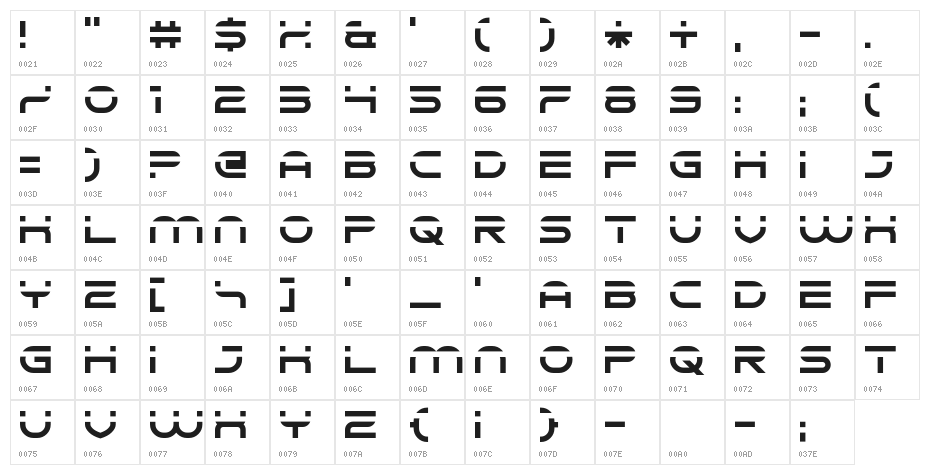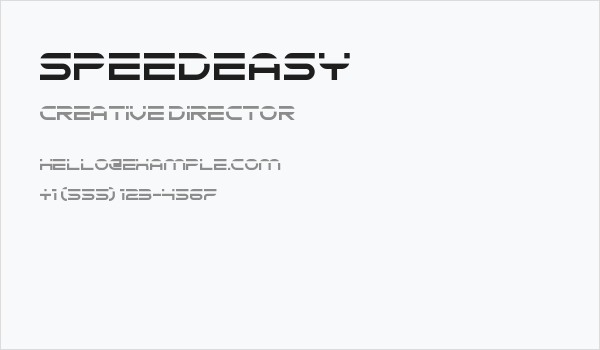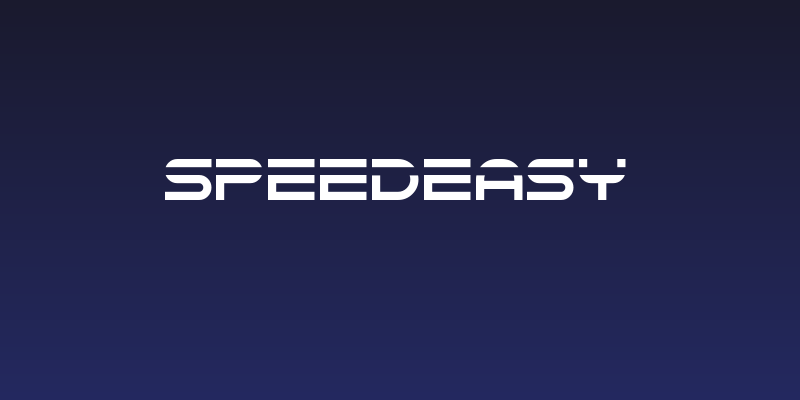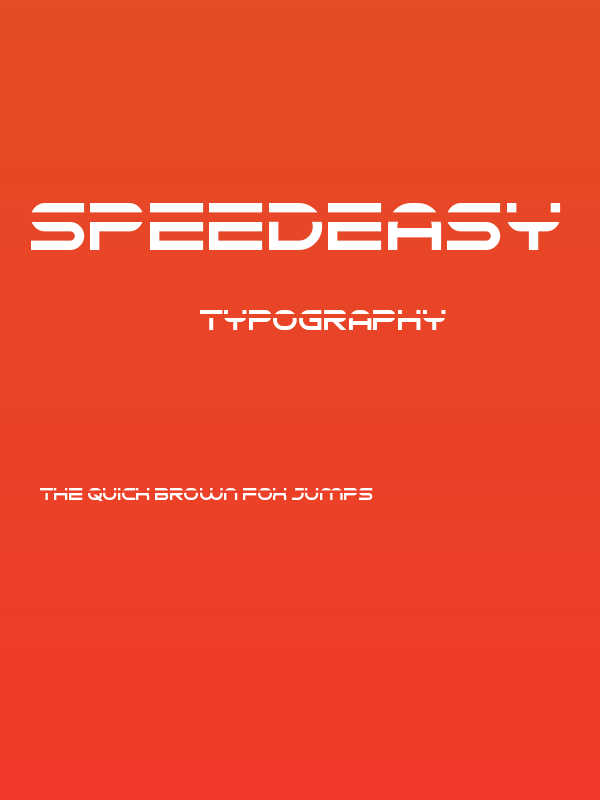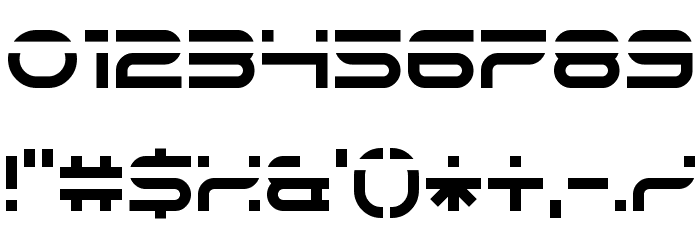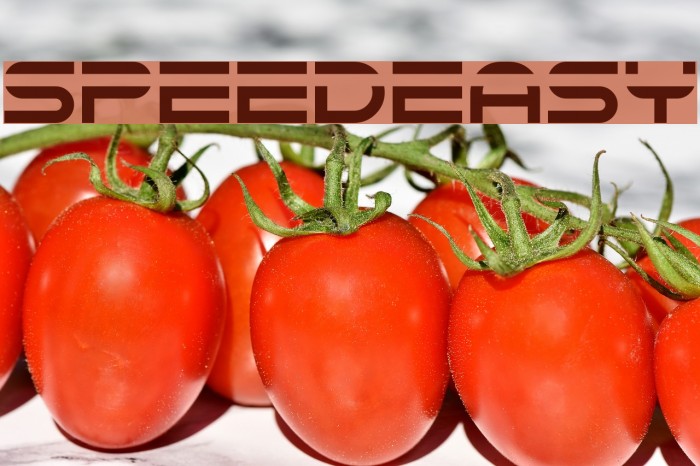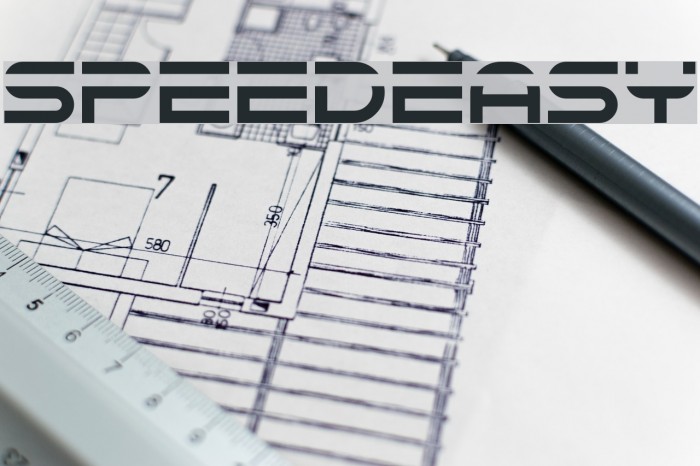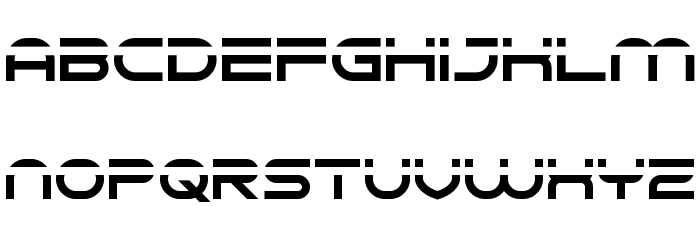
Speedeasy Font
This font features a futuristic and geometric design, characterized by its bold and angular letterforms. The characters are constructed with a series of straight lines and sharp angles, giving it a distinctly modern and digital appearance. The uppercase letters are particularly striking, with a uniform height and width that creates a cohesive and structured look. The lowercase letters maintain the same geometric style, ensuring consistency across the typeface. Numbers and special characters are designed to match the overall aesthetic, making this font suitable for a variety of digital and print applications. Its unique style makes it ideal for projects that require a modern and tech-inspired look.
| Proposed Projects | Ideal for technology branding, digital interfaces, video game titles, and sci-fi themed designs. |